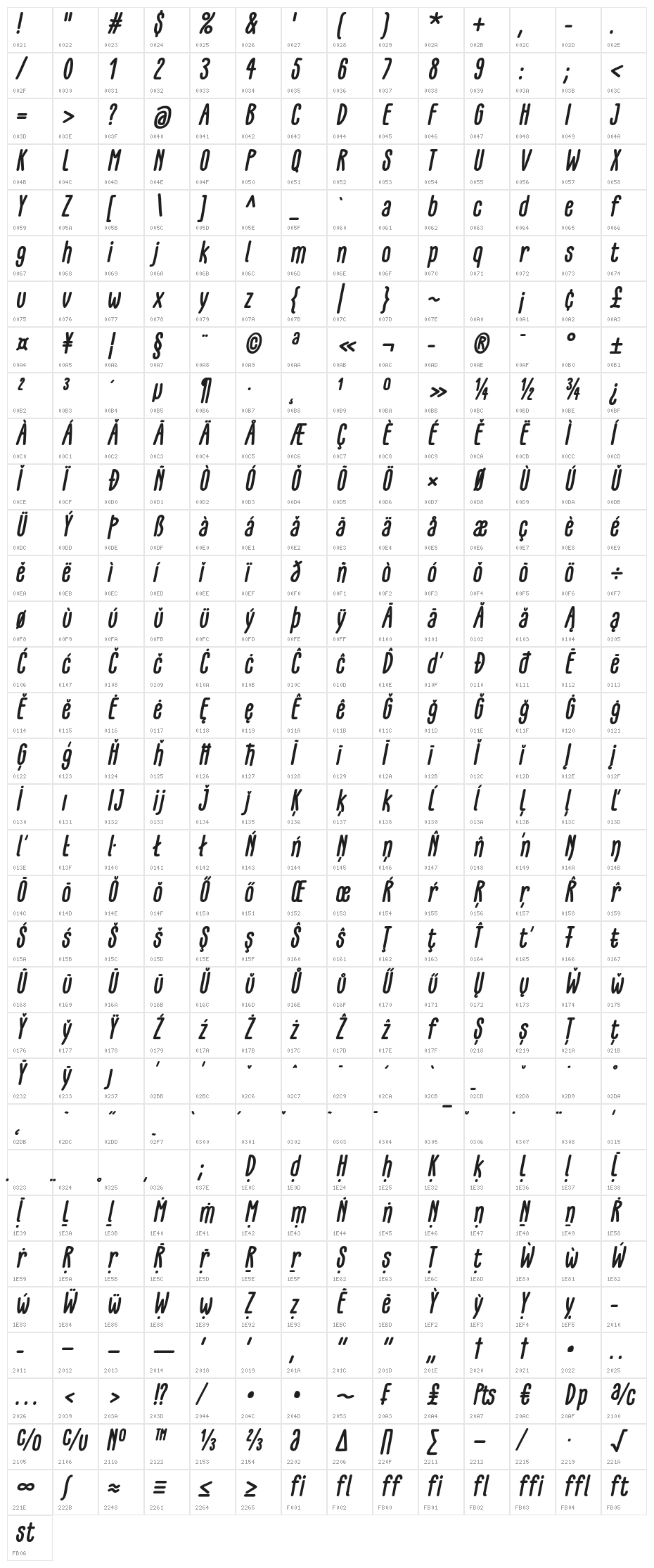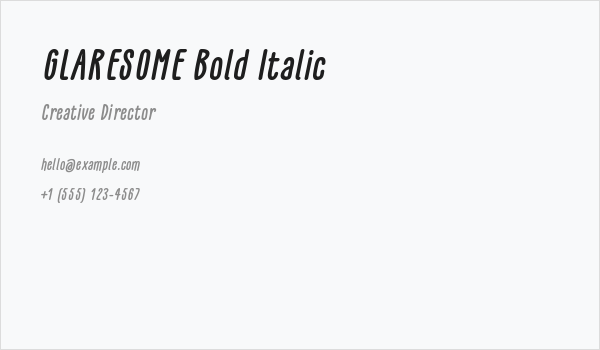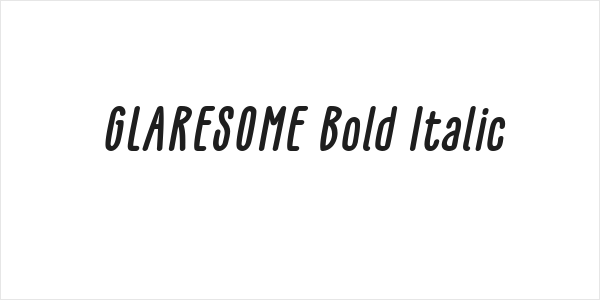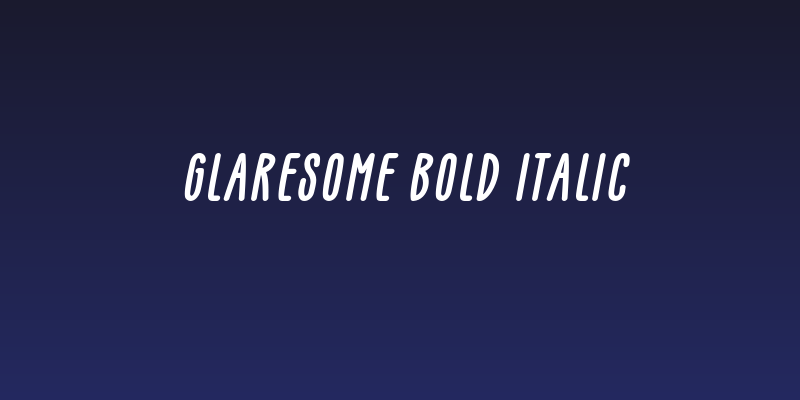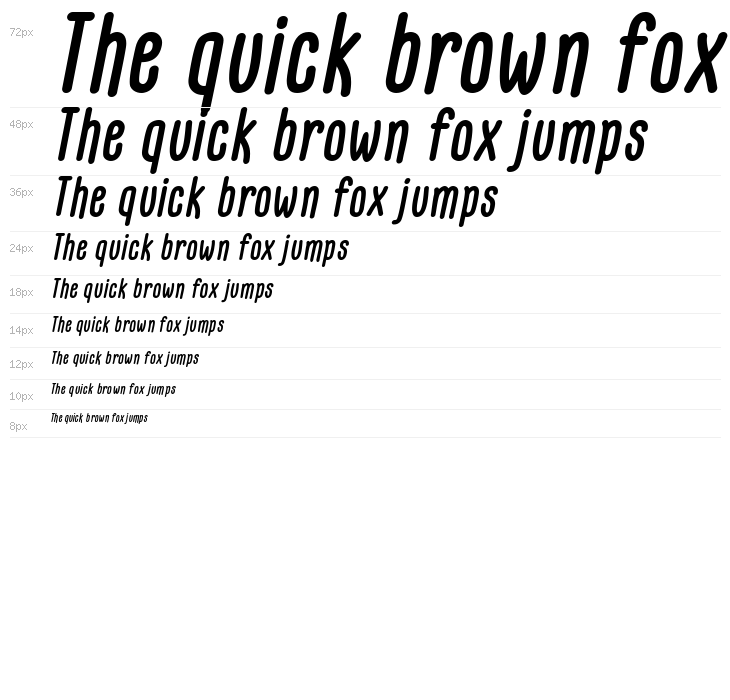
GLARESOME Bold Italic Font
GLARESOME Bold Italic Description
This font features a bold and italicized style with a handwritten, casual appearance. The letters are slightly slanted, giving it a dynamic and energetic feel. The strokes are thick and consistent, providing a strong presence on the page. The uppercase and lowercase letters maintain a uniform height, contributing to its cohesive look. Numbers and special characters are designed to match the overall style, ensuring versatility across different uses. The font's playful yet assertive nature makes it suitable for a variety of creative projects.
| Proposed Projects | Ideal for branding, posters, social media graphics, and creative advertising campaigns. |